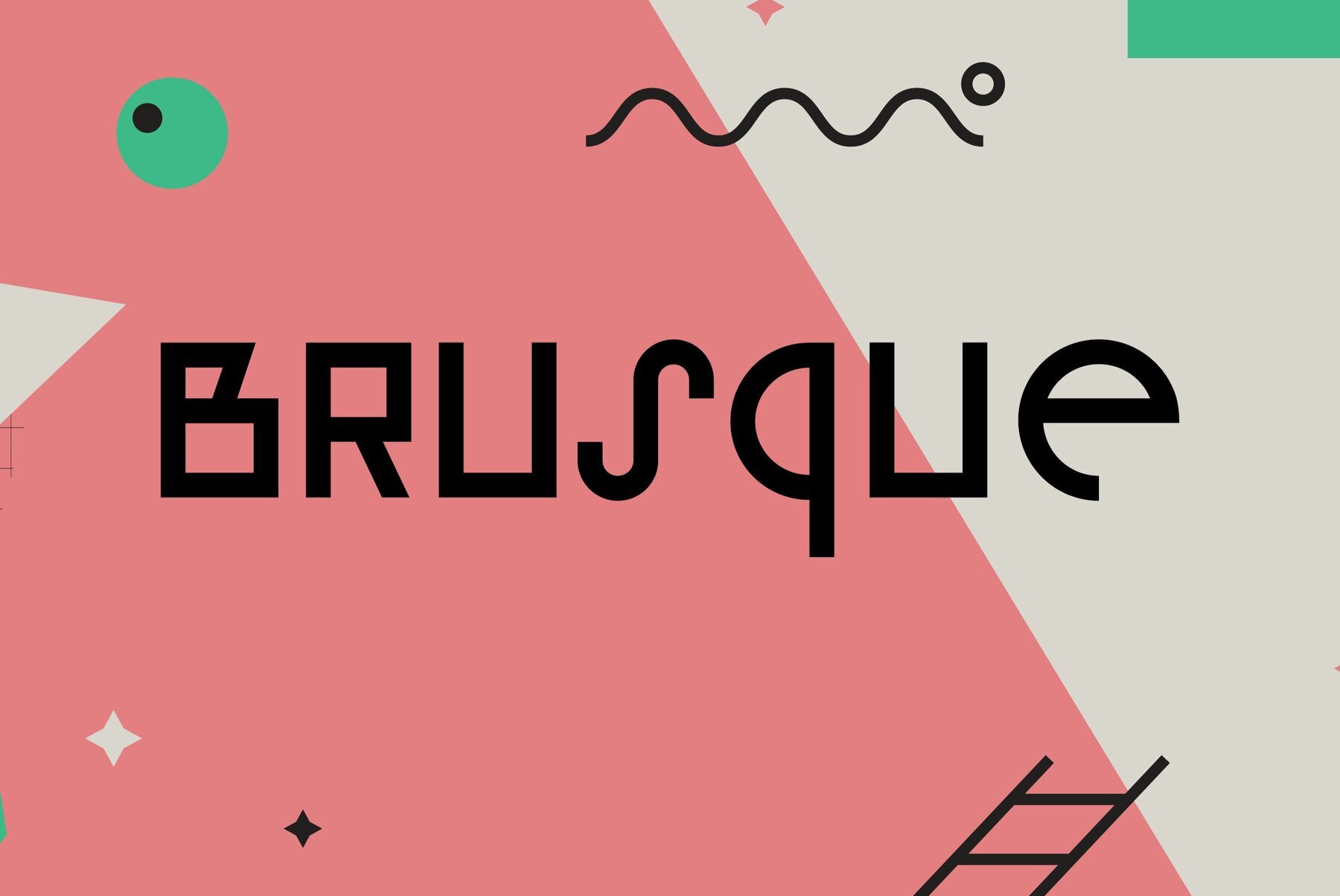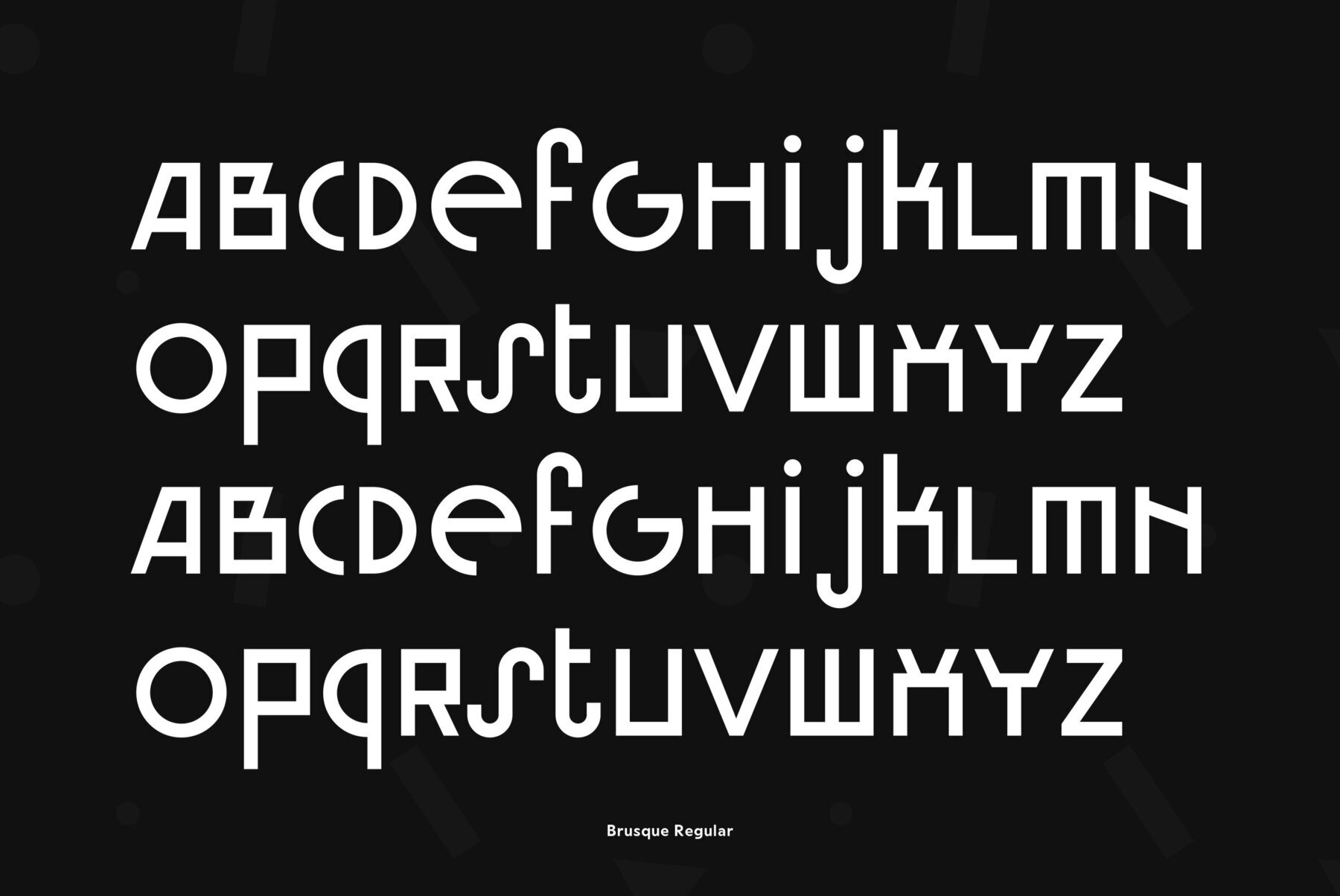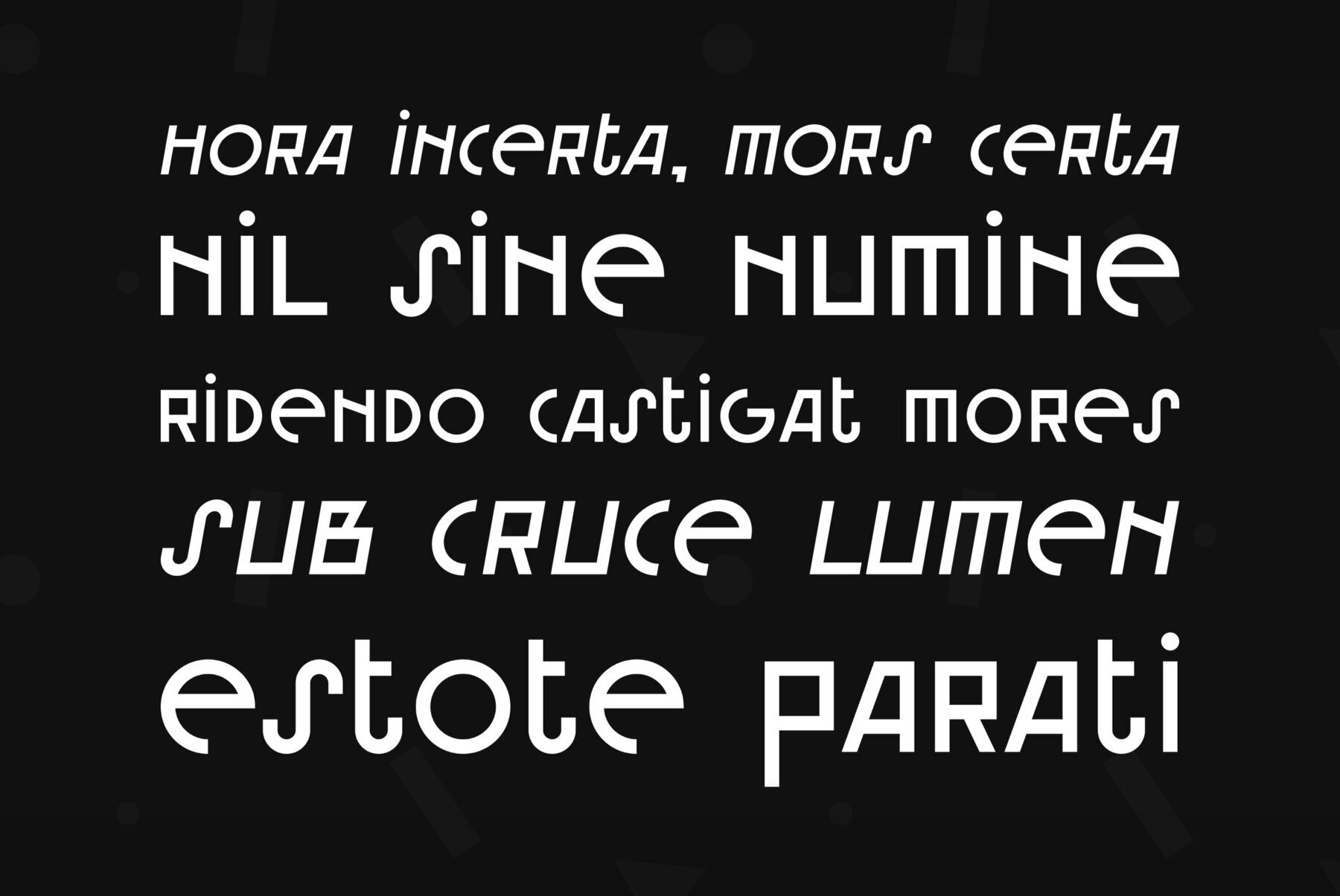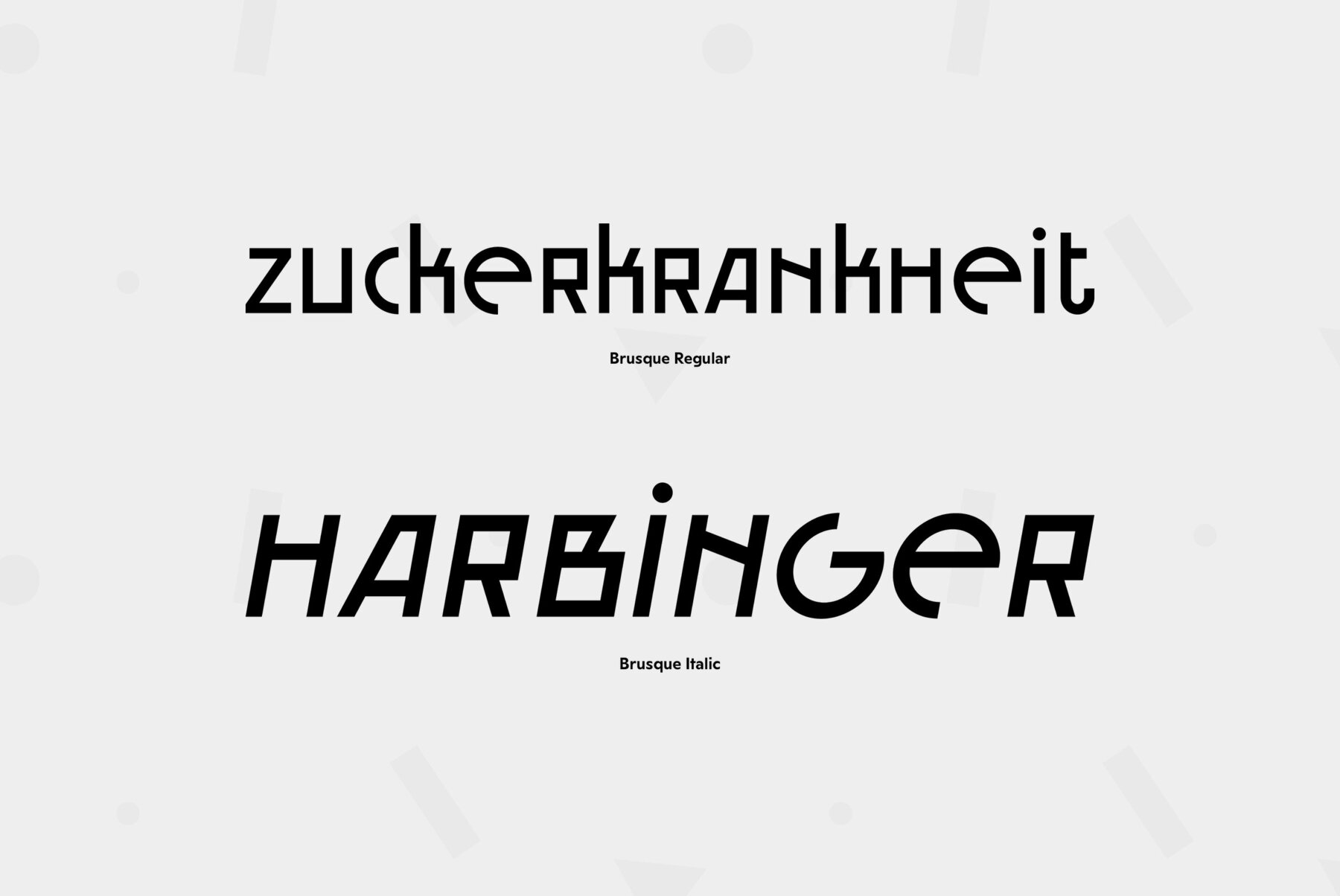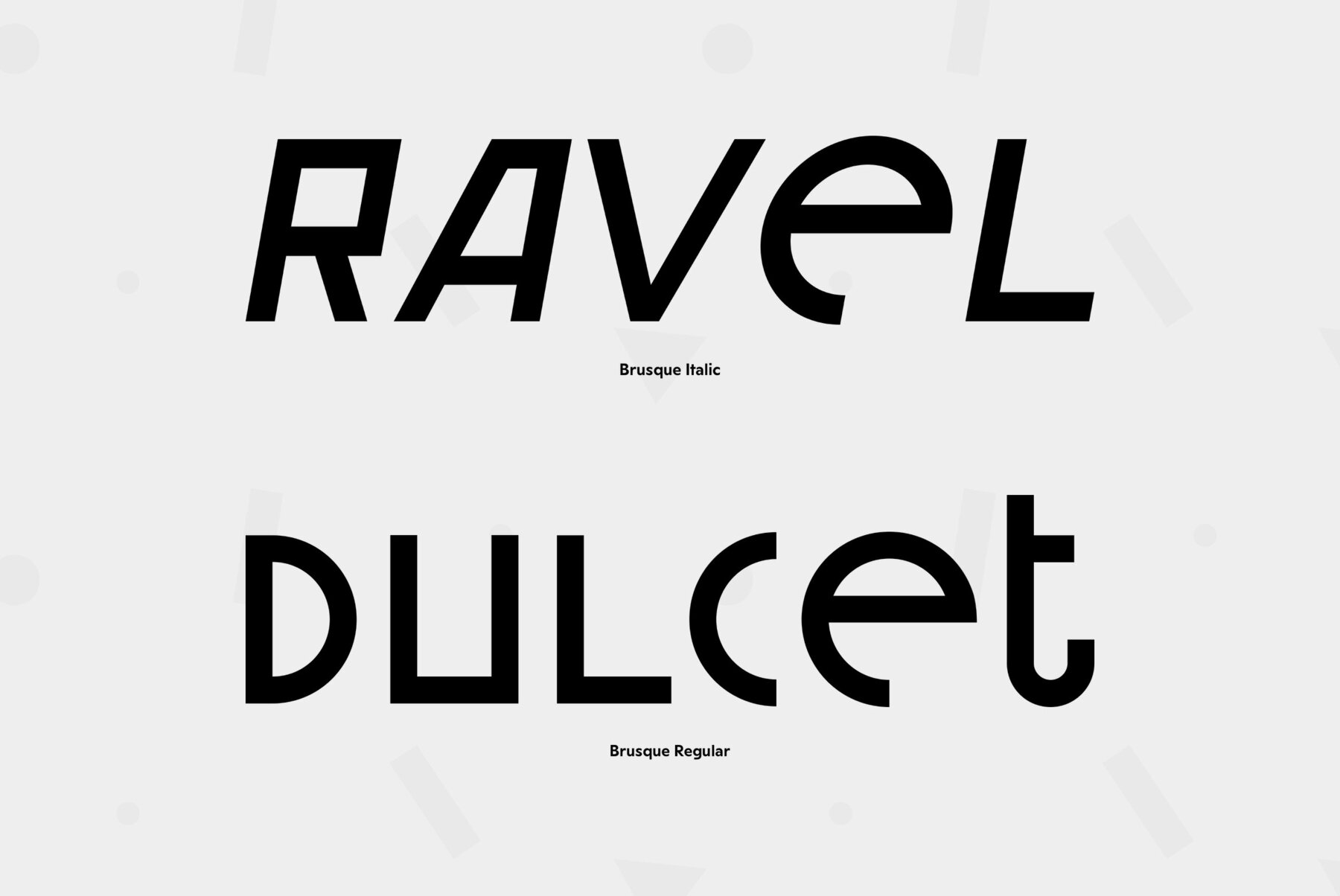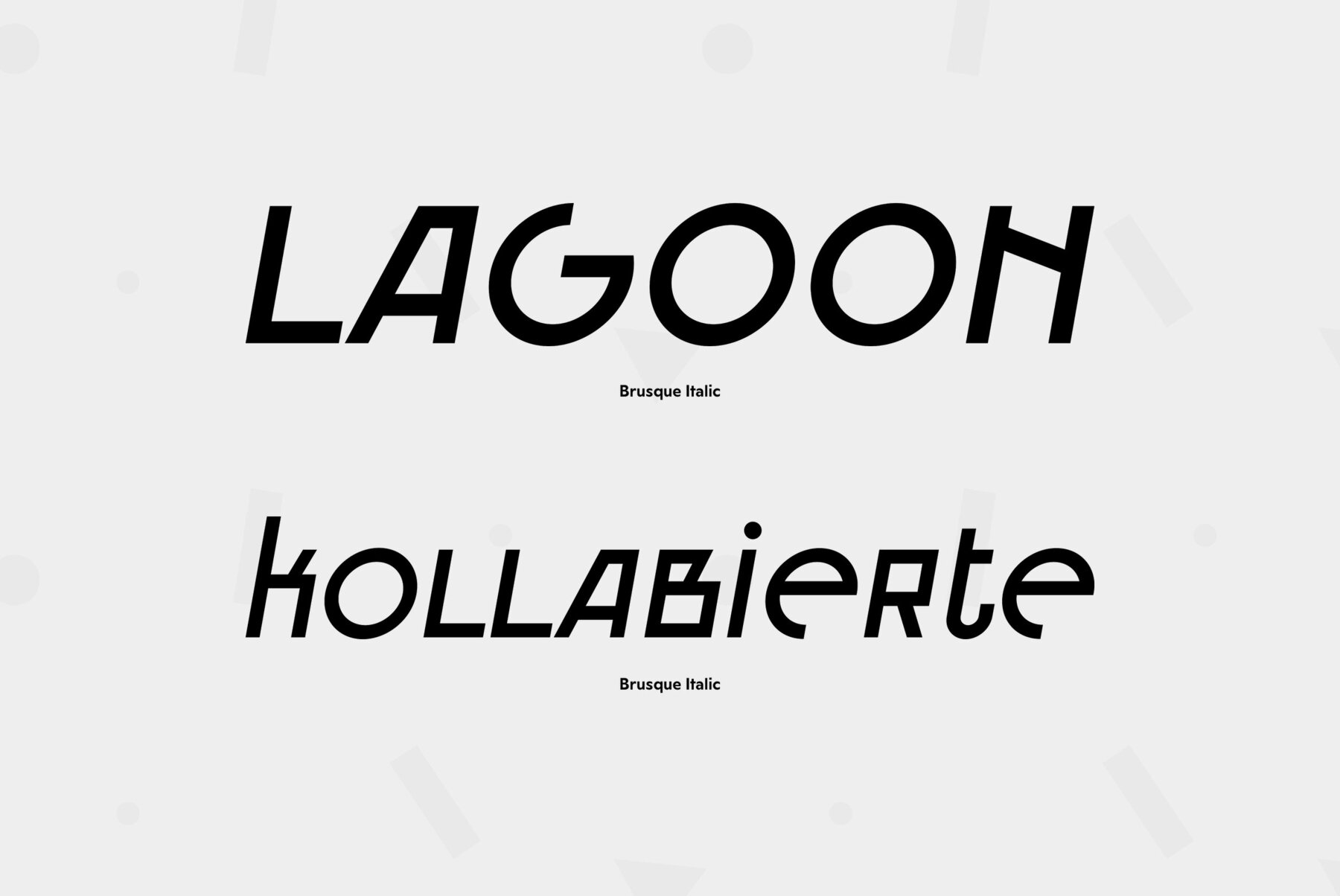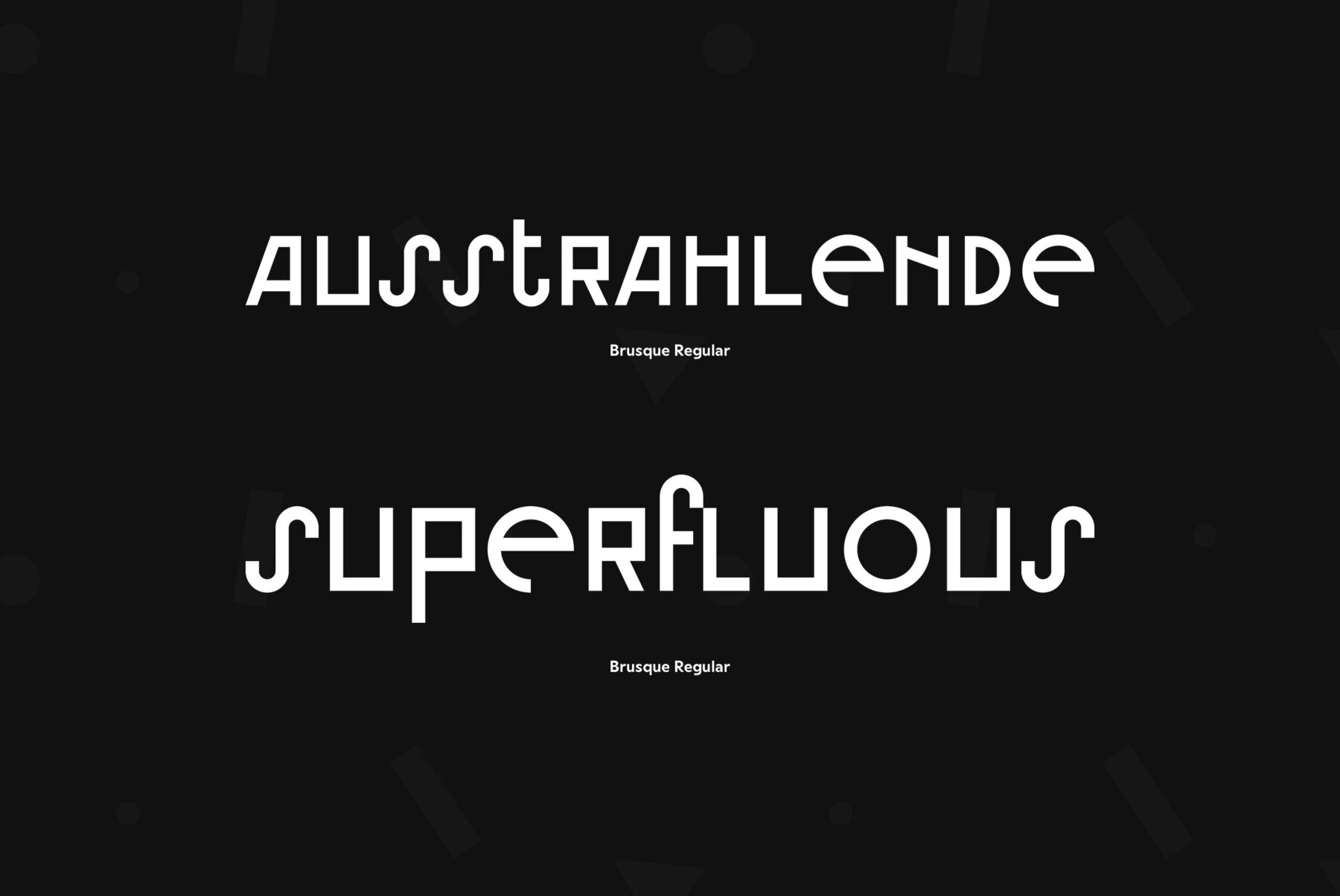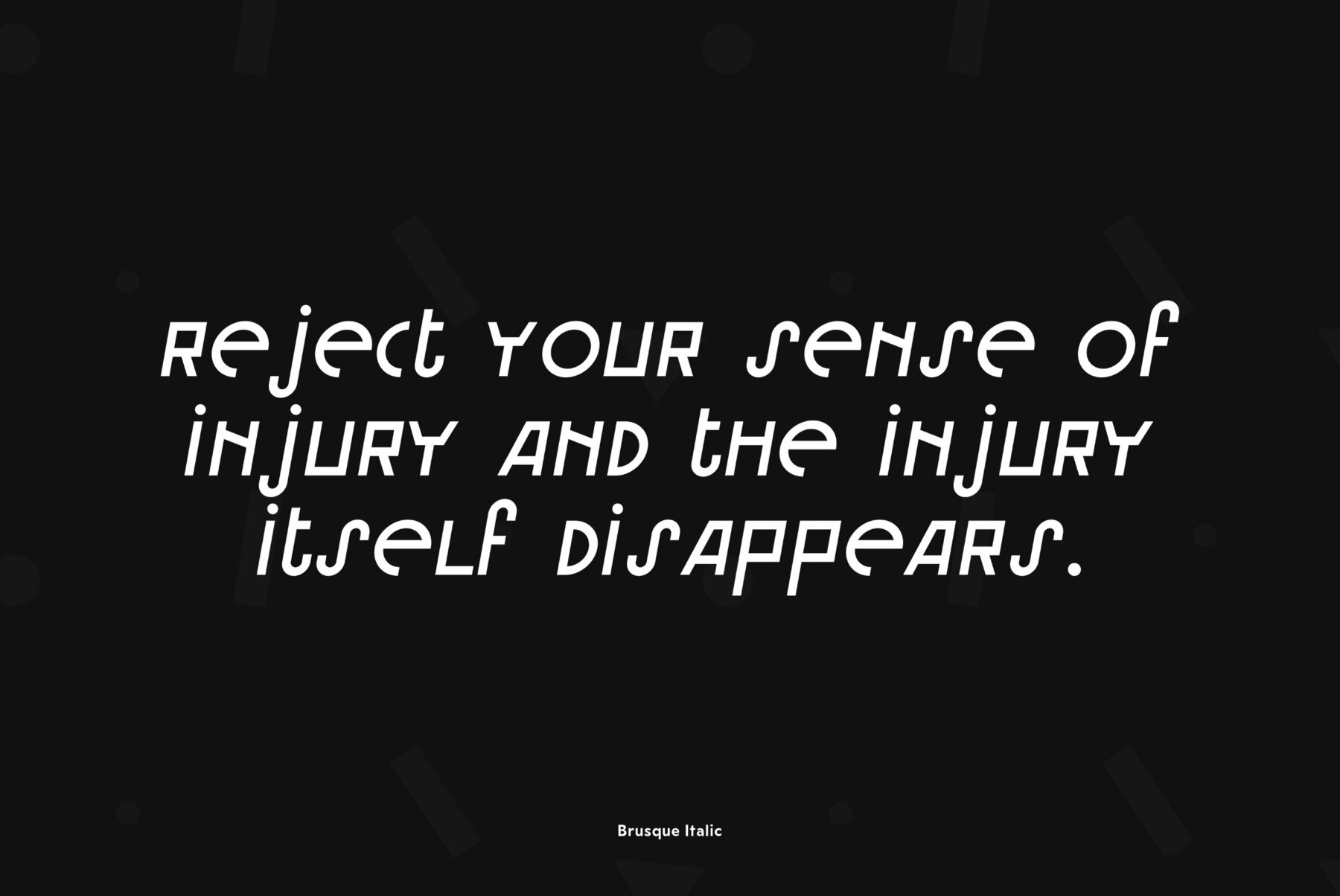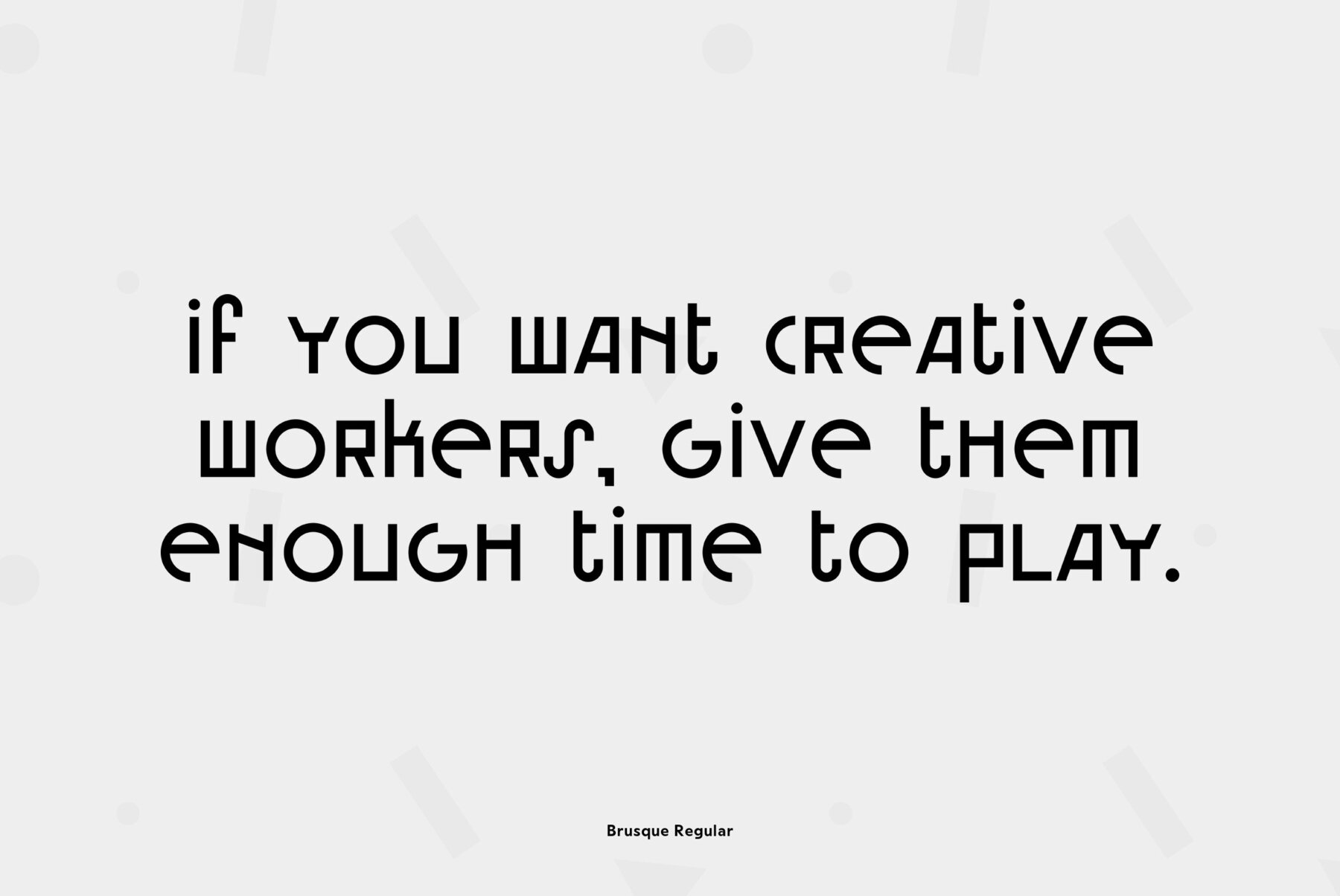
An original display typeface designed by Andrey Belonogov. It was originally named Rouble and under this name it was awarded a first degree diploma of the Typefaces nomination at the “Graphite” Graphic Design Festival, 1999, and a diploma at the ATypI International Type Design Contest “Bukva:raz!”, 2001. Released by ParaType in 2008.